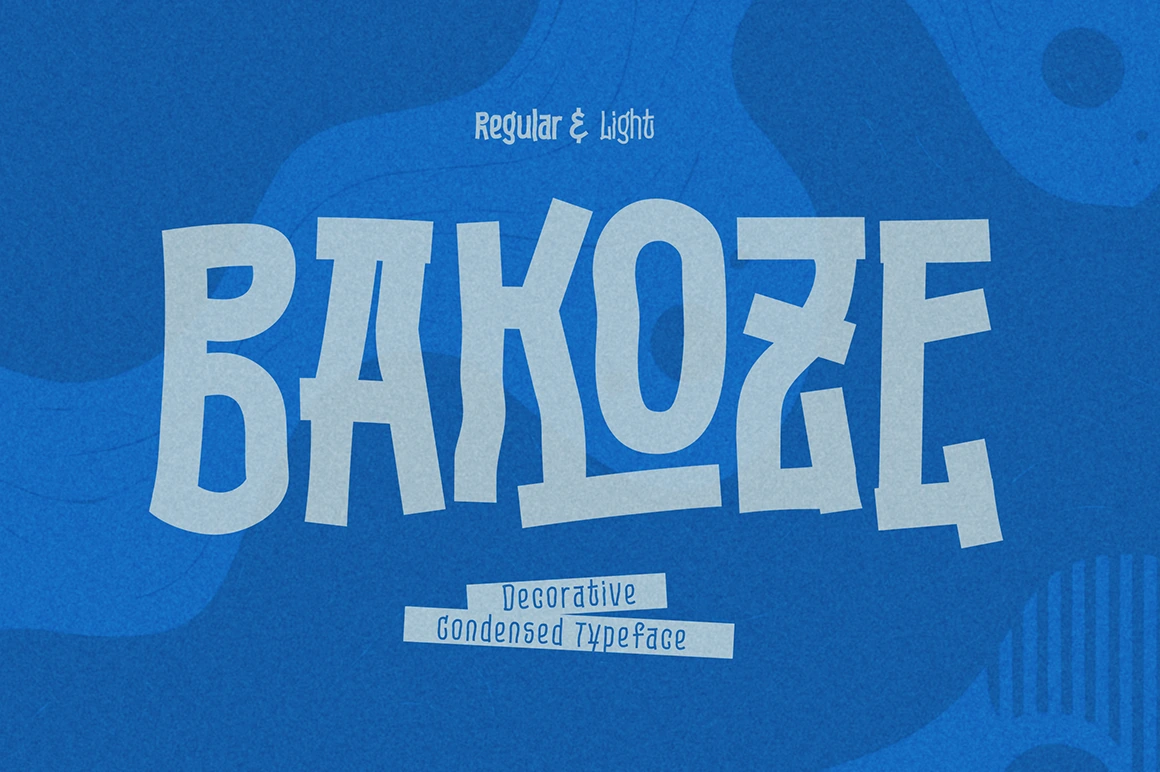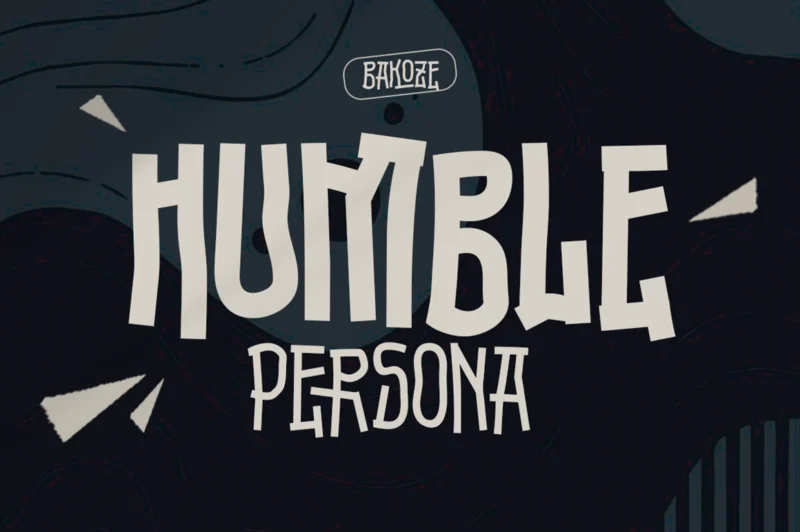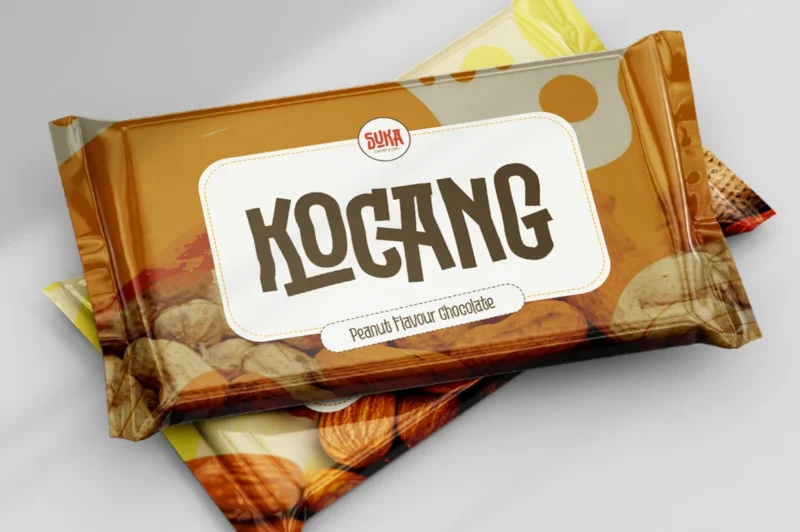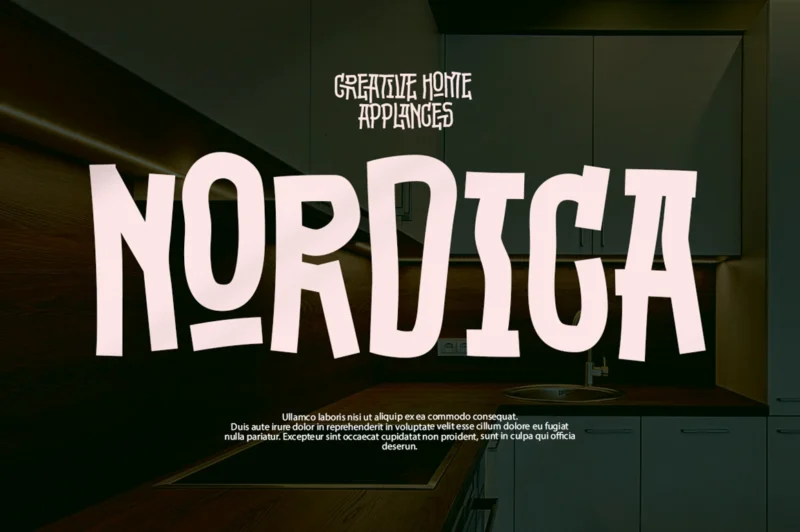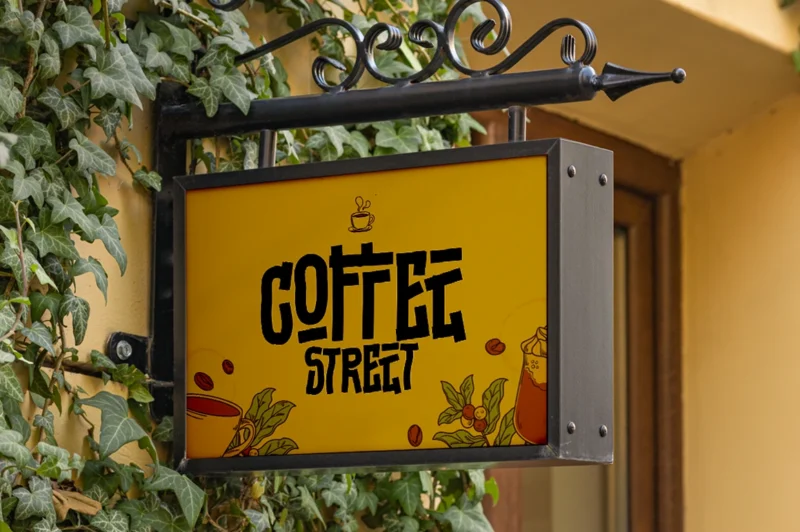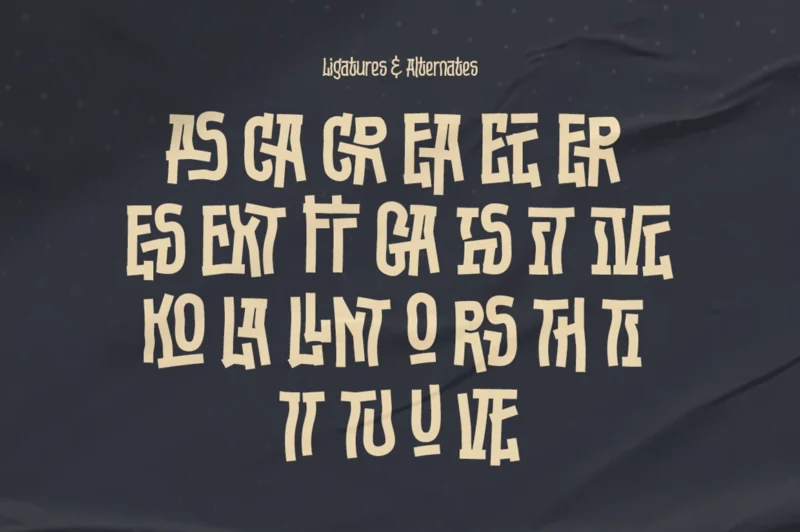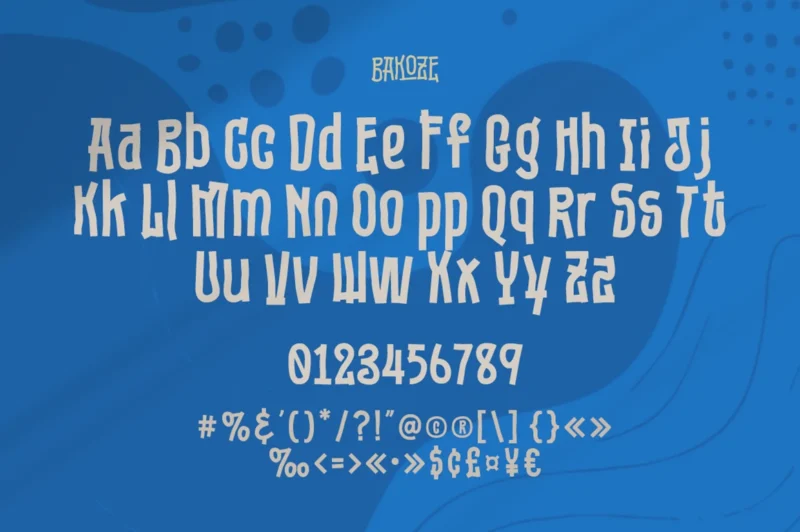
Bakoze Regular
Bakoze Light
Bakoze is a unique, modern decorative font with a clean condensed form that delivers a strong and stylish visual impact. Available in Regular and Light styles, Bakoze offers flexibility while maintaining a distinctive character. Its modern aesthetic makes it a perfect choice for headers, eye-catching logotypes, and quotes, adding a bold yet elegant touch to any design project.
• Modern Condensed Decorative Font
• Uppercase and Lowercase
• Creative Ligatures & Alternates
• Basic Latin Glyphs
• Unique and Stylish
• Numeral and Punctuation
• Currencies
• Multilingual Support
Bakoze – Modern Decorative Font